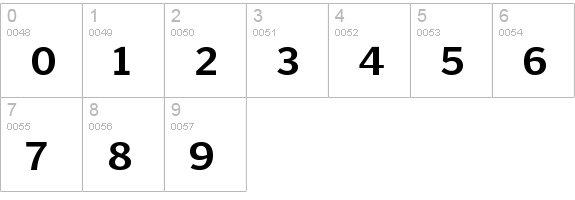
PoynterText-SansBold is a modern and versatile font that exudes confidence and sophistication. Its bold weight commands attention while maintaining a clean and legible appearance, making it perfect for headlines, titles, and emphasis in all kinds of designs. The sturdy yet elegant letterforms of PoynterText-SansBold convey a sense of professionalism and authority, making it a popular choice for branding and editorial projects. What sets PoynterText-SansBold apart is its unique blend of contemporary style and classic design elements, creating a timeless look that is both striking and easy to read. Whether used in print or digital media, this font makes a bold statement that is sure to leave a lasting impression on viewers. Best of all, PoynterText-SansBold is available for free download at FontsMarket.com, making it accessible to designers and creatives looking to elevate their projects without breaking the bank. Don't miss out on the opportunity to add this exceptional font to your collection and bring a touch of sophistication to your designs today.